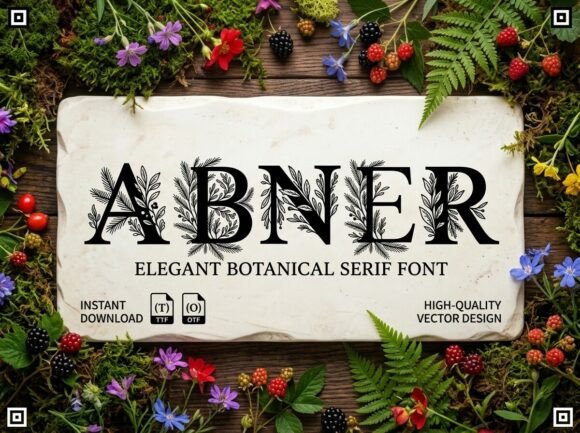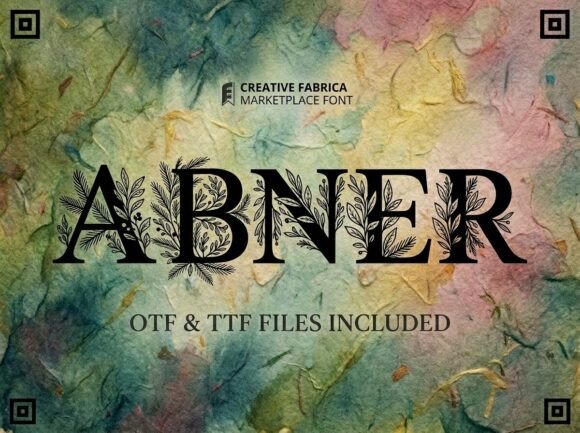
Introducing Abner Font: A Stunning Decorative Display Font
Are you tired of using the same old fonts for your designs? Look no further than Abner Font, a unique and artistic display font that’s sure to turn heads. With its strong visual personality and decorative elements, this font is perfect for creators who want to add a touch of elegance and sophistication to their work.
Abner Font is a stunning decorative display font designed to be the center of attention. Its unique artistic elements and strong visual personality make it perfect for bold headlines, artistic logos, and creative packaging. Whether you’re a designer, craftsperson, or DIY enthusiast, this font is sure to elevate your work to the next level.
One of the best things about Abner Font is its versatility. This font is perfect for a wide range of design applications, from bold headlines and artistic logos to creative packaging and decorative initials. And with its professional and polished finish, you can use it with confidence, knowing that your designs will look great on any device or platform.
⚠️ IMPORTANT NOTE BEFORE PURCHASE: Abner Font is an ALL-CAPS (Uppercase Only) display typeface. This means that it does not include lowercase letters. It is specifically designed for high-impact headlines, logos, and decorative initials where every letter is a work of art.
This is not a limitation, but rather a deliberate design choice that ensures each letter stands out on its own. And with its unique artistic elements, you’ll find that Abner Font is perfect for creating eye-catching designs that demand attention.
Abner Font is perfect for designers and crafters who want to add a touch of elegance and sophistication to their work. Whether you’re creating:
• Logos and branding materials
• Headlines and titles
• Packaging and labels
• Invitations and stationery
Abner Font is the perfect choice. Its unique artistic elements and strong visual personality ensure that your designs will stand out from the crowd.
Tips for Using Abner Font
Here are a few tips for using Abner Font:
• Use it sparingly: Abner Font is a bold and attention-grabbing font, so use it sparingly to avoid overwhelming your design.
• Pair it with a neutral font: Pair Abner Font with a neutral font to create contrast and add visual interest to your design.
• Experiment with colors: Abner Font looks great in a variety of colors, so don’t be afraid to experiment and find the perfect hue for your design.
Abner Font is a stunning decorative display font that’s perfect for designers and crafters who want to add a touch of elegance and sophistication to their work. With its unique artistic elements, strong visual personality, and versatility, this font is sure to elevate your designs to the next level. So why wait? Purchase Abner Font today and start creating stunning designs that demand attention!